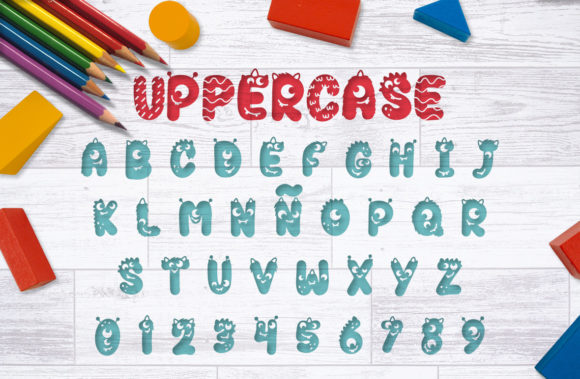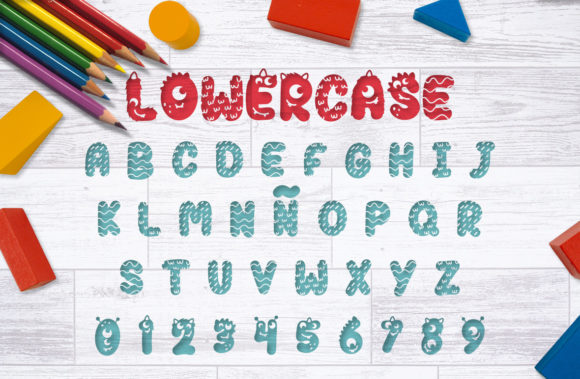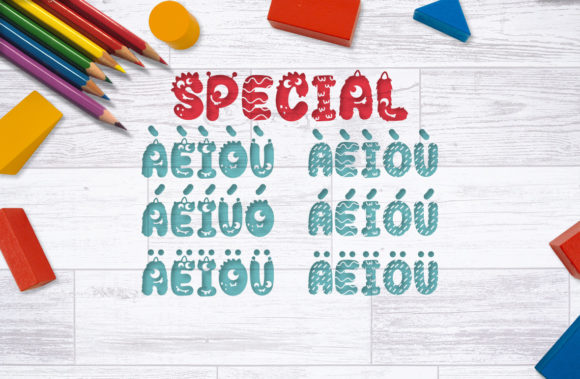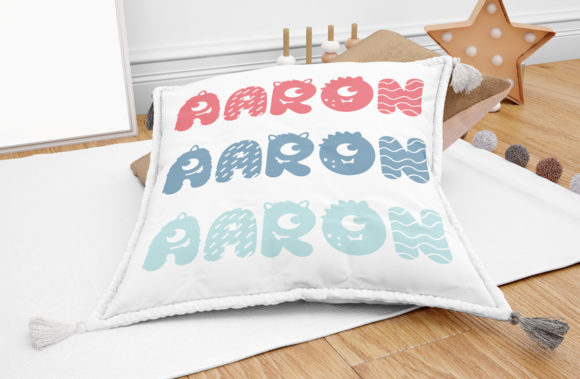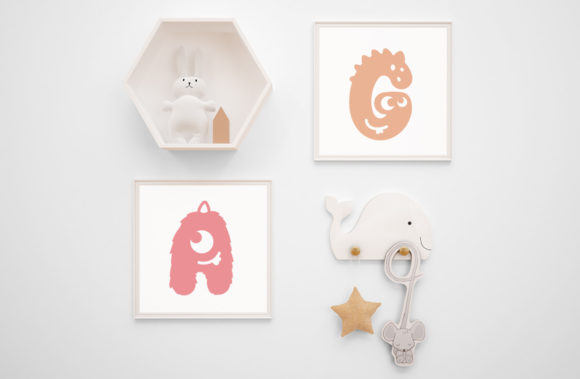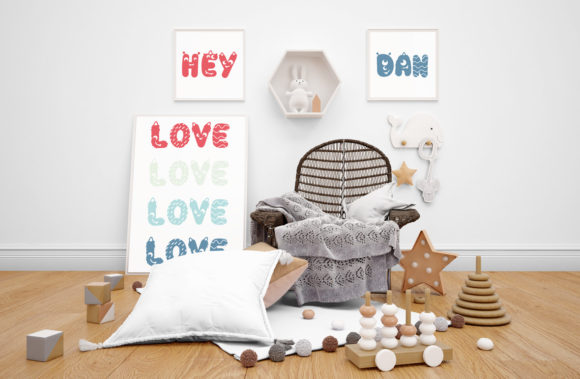
Discovering the Perfect Font for Your Next Creative Project
Have you ever found yourself staring at a blank canvas, eager to bring your imagination to life but struggling to find the right words to express it? This is where the magic of typography comes in – a well-chosen font can instantly elevate your design and transport your audience to a world of wonder. For me, this moment of creative serendipity happened when I stumbled upon the adorable Baby Monster Font.
This charming display font is perfect for adding a touch of whimsy to your crafts, digital designs, presentations, or greeting cards. Whether you’re a seasoned designer or a crafty enthusiast, Baby Monster Font has the potential to become your go-to font for any occasion. Its quirky design makes it an invaluable addition to any designer’s toolkit, allowing you to add a unique twist to your projects and stand out from the crowd.
Baby Monster Font Key Features
- Unique Characteristics: The Baby Monster Font features a bold, playful design with rounded edges and a friendly tone, making it perfect for children’s products, nursery decorations, and educational materials.
- Number of Glyphs: The font includes a wide range of glyphs, including uppercase and lowercase letters, numbers, and special characters, ensuring that users have a comprehensive set of symbols to work with.
Review of “Baby Monster Font”
Overall, I’m quite pleased with the “Baby Monster Font” – it’s an adorable, playful typeface that’s perfect for projects with a whimsical or childlike theme. ✨ The font’s rounded edges and chunky strokes give it a fun, cartoonish feel that’s hard to resist. I love using it for titles and headings in children’s books, nursery decor, and even branding for family-friendly businesses.
One of the standout features of this font is its high level of customization. ✨ The font comes with a range of styles and weights, from light to bold, which makes it easy to find the perfect fit for your project. I also appreciate the fact that the font is highly legible, even at small font sizes – a must-have for any font designer.
- ⚠️ Limited language support – the font only includes a basic Latin character set, which may limit its use in non-English projects.
- ⚠️ Not ideal for formal or professional projects – the font’s playful feel may not be suitable for more serious or formal applications.
Overall, I’d give the “Baby Monster Font” 4 out of 5 stars. It’s a fun, versatile font that’s perfect for projects with a playful theme. While it may have some limitations, it’s definitely worth checking out for any designers looking to add a bit of whimsy to their work.
Tips for Getting the Most Out of the Baby Monster Font
Use the Baby Monster Font to add a playful touch to your designs. It’s perfect for children’s products, nursery decor, and other fun projects. Experiment with different font sizes and colors to create a unique look.
The Baby Monster Font is ideal for:
- Children’s product labels
- Nursery decor and wall art
- Toy packaging and branding